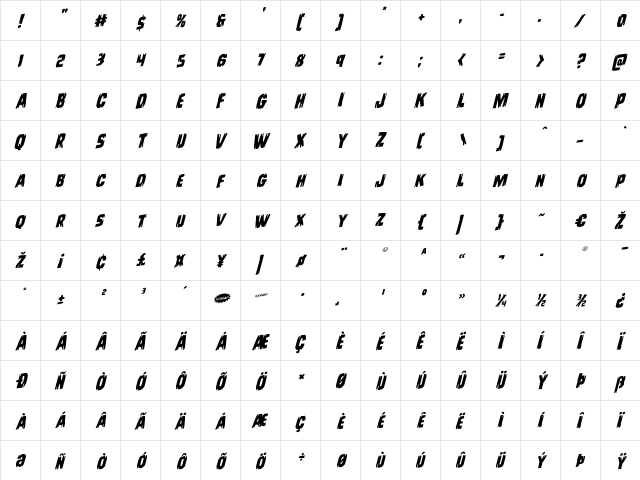
Leatherface Rotalic Italic Font Preview
Leatherface Rotalic Italic
Design Context for Leatherface Rotalic Typeface
Leatherface Rotalic is a composed and adaptable typeface that performs quietly and consistently across a wide range of design contexts. Its italic angle brings a sense of urgency and motion to the letterforms.
Pro Tip: Use Leatherface Rotalic for emphasis, pull quotes, and subheadings where its slanted energy can add rhythm to the layout.